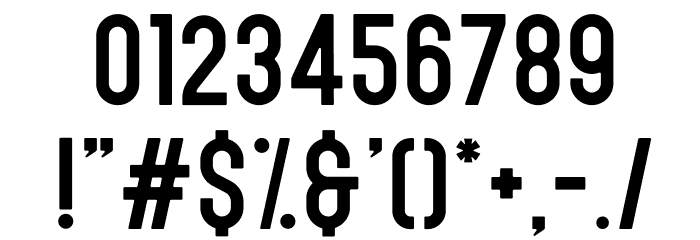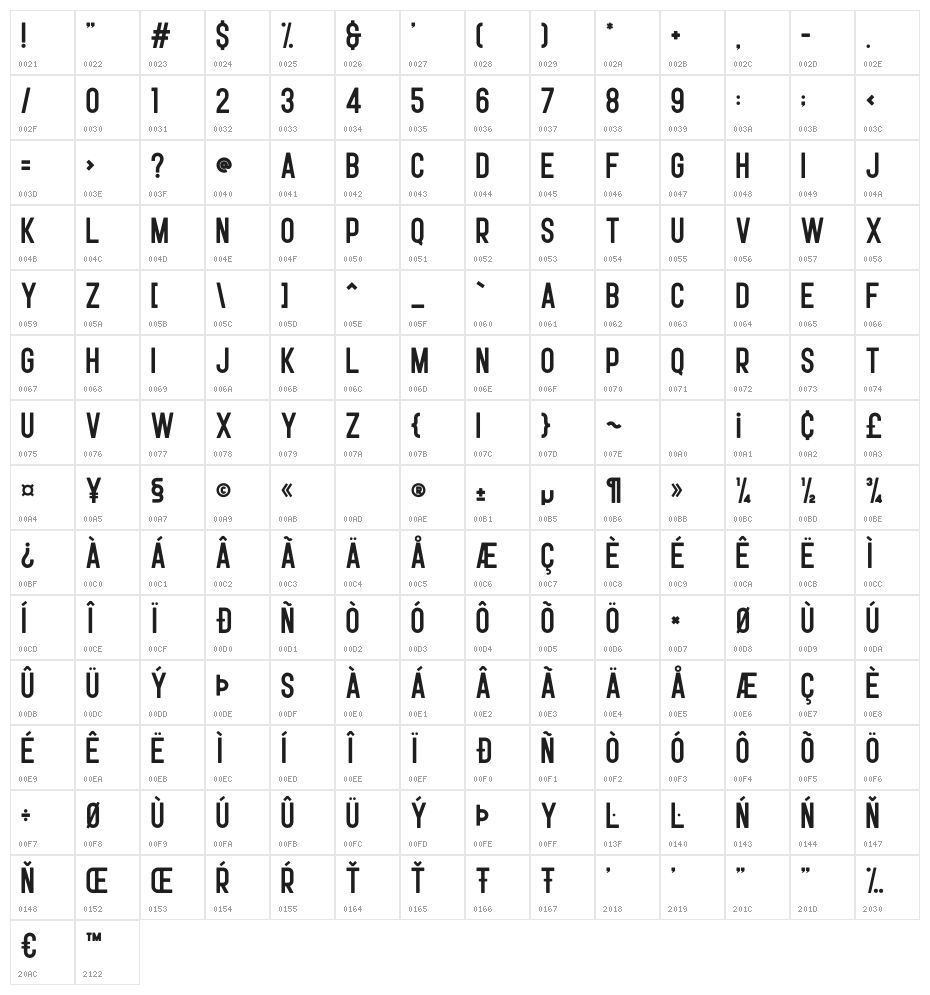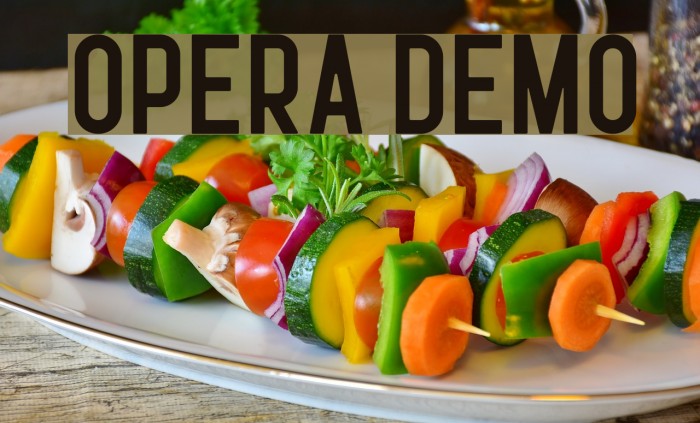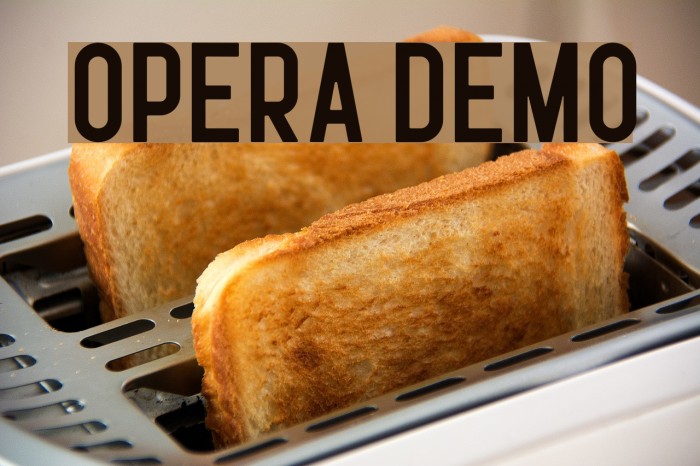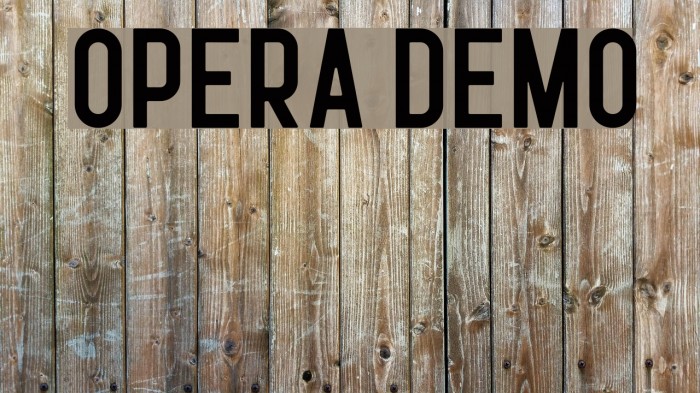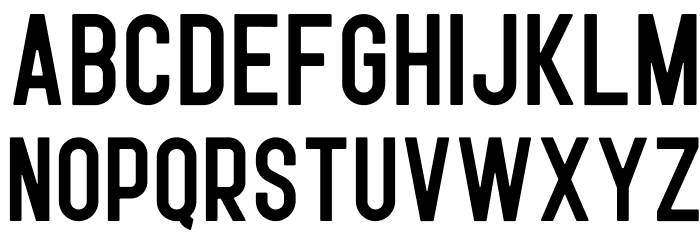
Opera Demo Font
Opera Demo Description
This font features bold, uppercase letters with a strong, impactful presence. The characters are uniformly designed with a consistent stroke width, giving them a modern and clean appearance. The numbers and special characters maintain the same boldness and clarity, ensuring readability across various uses. The font's geometric shapes and straight lines contribute to its contemporary style, making it suitable for attention-grabbing headlines and signage.
| Use Case | Headlines, Logos, Signage |
| Proposed Projects | Ideal for branding, posters, headlines, and signage where a strong visual impact is needed. |